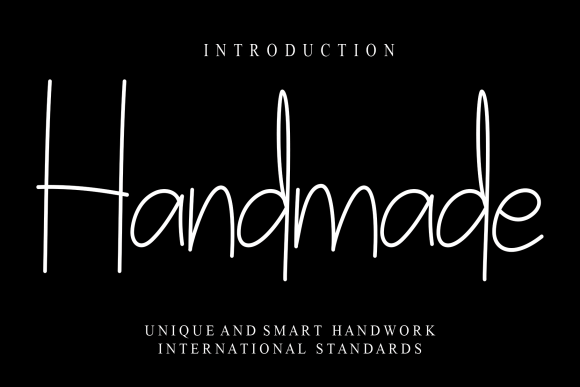
Handmade is a thin and natural handwritten font. Whimsical and a bit quirky, this font will brighten up each of your designs. Add it confidently to your projects, and you will love the results.